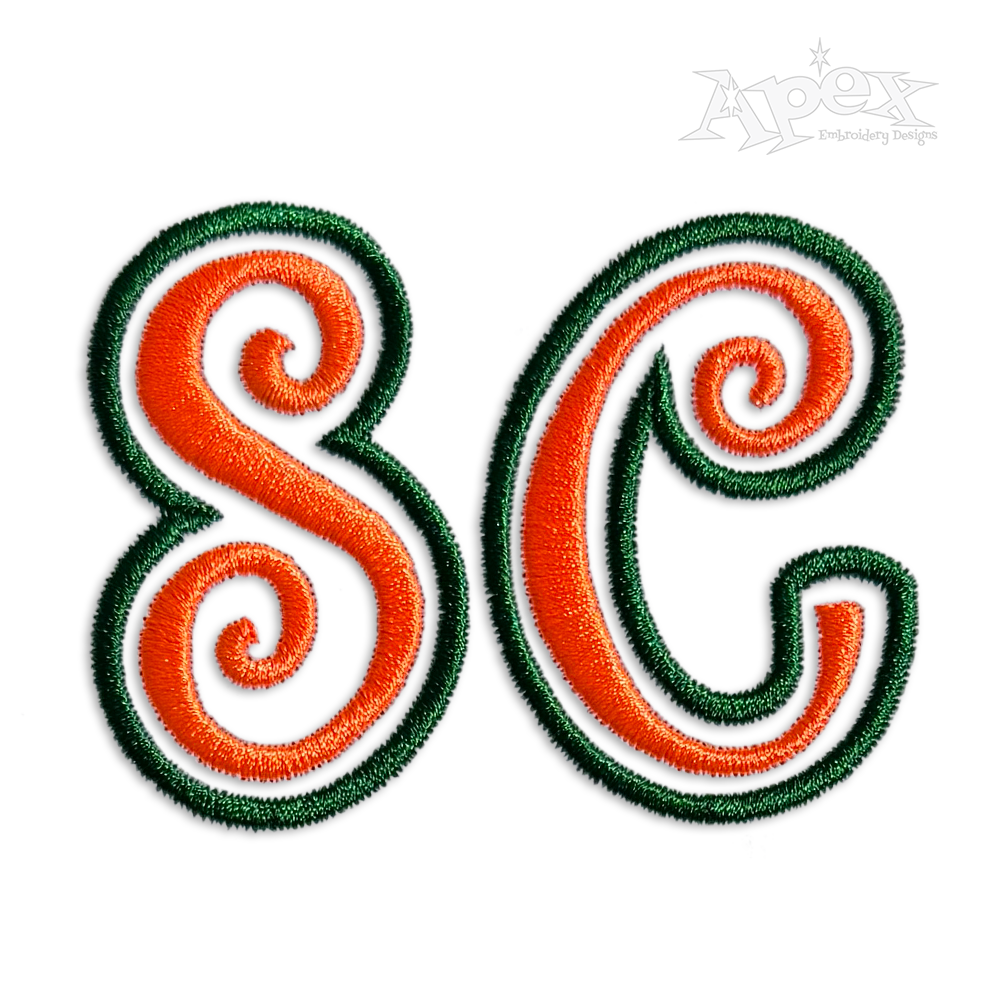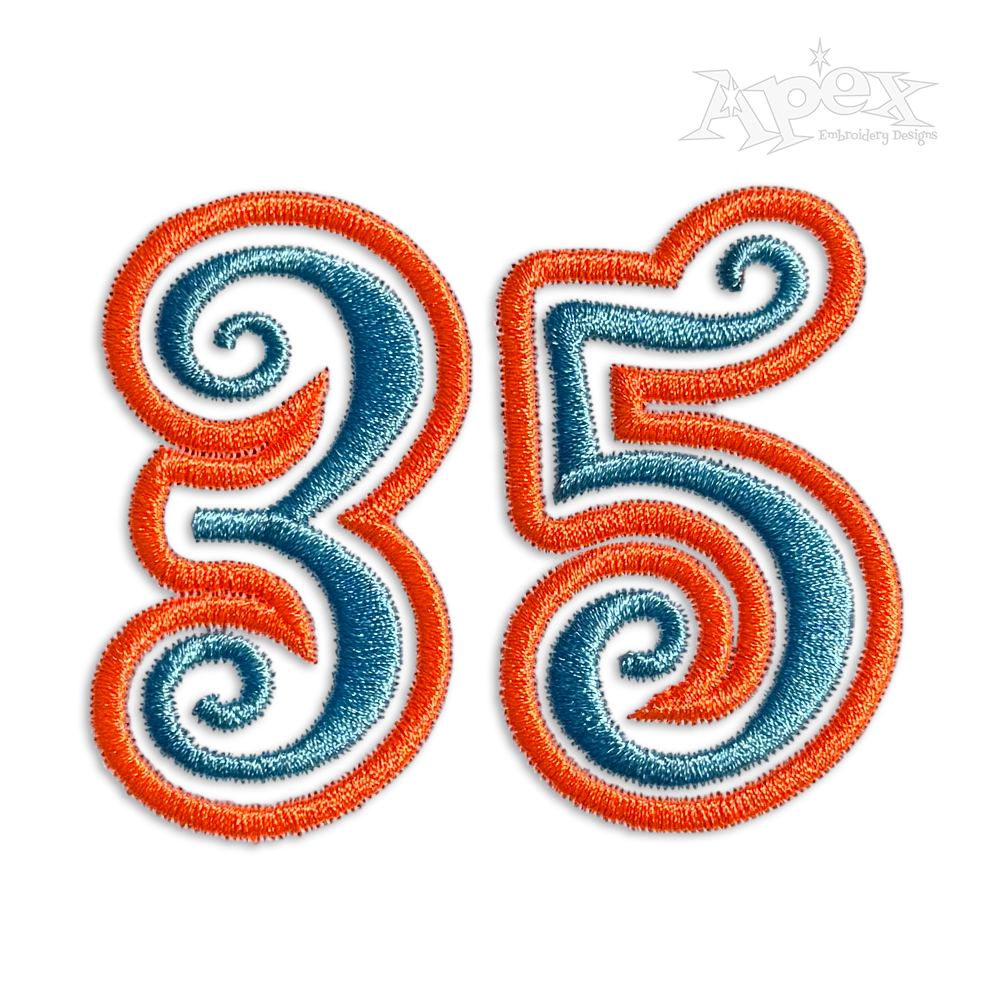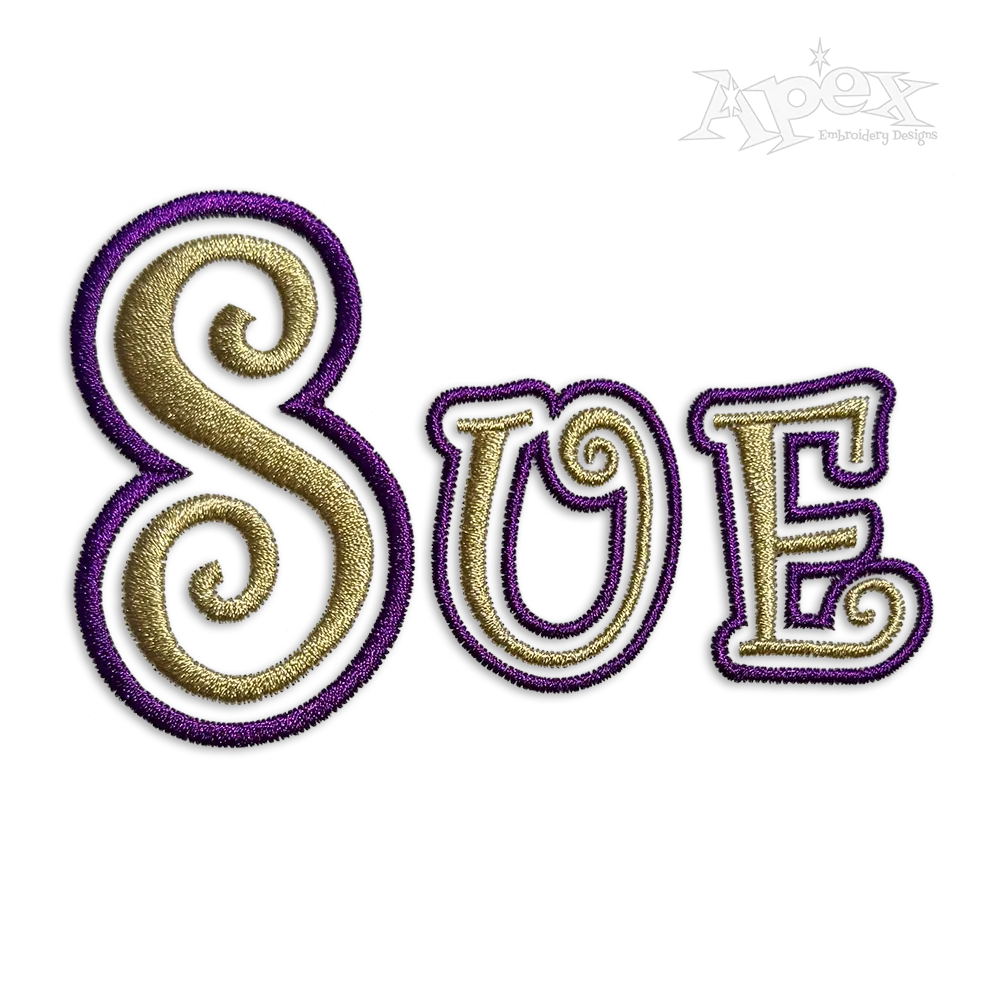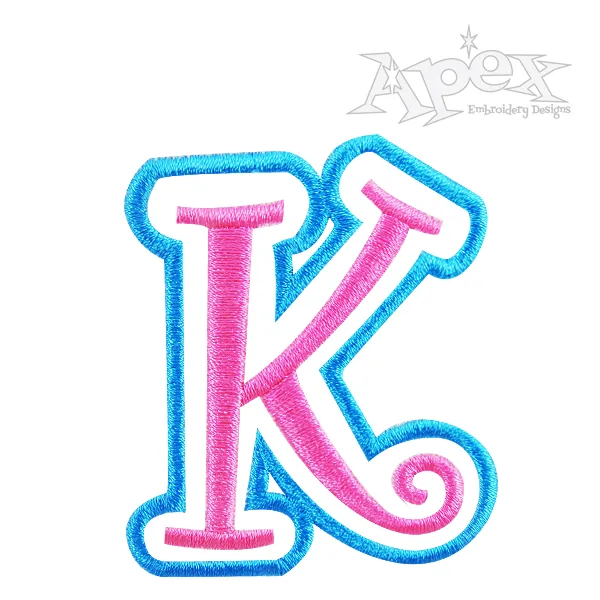
Curlz wide outline Embroidery Font
There is an irresistible, dancing joy built into the spirited anatomy of Curlz—a letterform that refuses to sit quietly on the baseline and instead bursts with festive vitality. In reimagining this beloved alphabet as a wide two-color outline design, our studio sought to blend lighthearted whimsy with couture-level stitch craft. By creating a layered silhouette with an independent contour border, this font invites you to play with high-contrast color duos, metallic edges, or harmonious pastel tones that make every name and monogram vibrate with dimension. Whether stitching for childhood milestones or adding a playful flourish to sunny resort wear, this alphabet turns simple thread into an expressive celebration of personal style.
The widened stance and lively spirals of this design lend themselves to creative, joyful projects that call for personality:
Because Curlz Wide boasts expansive letter widths and coiled flourishes, thoughtful placement ensures each character shines:
- Center Chest: On sweatshirts, tees, and aprons, center the typography across the chest to let the swirling terminals and broad proportions command visual balance.
- Off-Center Diagonal Corners: Tilt single initial monograms on dinner napkins or throw pillow corners to enhance the naturally relaxed, jaunty spirit of the font.
- Tote Bag Centers: Anchor larger 2.5-inch or 3.5-inch initials squarely between handles on canvas or heavy duck fabric for a polished, boutique-ready look.
- Brim & Cuff Accents: Utilize the 1.0-inch scale along turned-up bucket hat brims, sock cuffs, or pocket welts for an unexpected, delightful touch of embroidery.
Curlz Wide Outline Craft & Letterform Details
Translating an outlined, curled typeface into flawless machine embroidery requires exceptional digitizing precision. Unlike standard single-pass lettering, an outline font must contend with push-and-pull distortion from two opposing sides. Each swooping curve and coiled terminal in this font is engineered with an intelligent underlay matrix that locks the base textile into place before the satin passes begin. This specialized foundation guarantees that the outer accent border tracks along the inner core with razor-sharp accuracy, eliminating unsightly fabric gaps and misalignment even across soft knits and textured terry cloth.
We carefully calibrated the stitch density across every arch, loop, and crossbar, ensuring the outer outline provides rich, elevated thread relief without becoming stiff or bulky. The result is a featherlight, pliable hand that bends naturally with garment wear while reflecting the radiant sheen of your chosen embroidery threads. The widened geometry provides plenty of breathing room for color interplay, giving modern makers the technical confidence and creative freedom to sew breathtaking, two-color typographic art on any canvas.